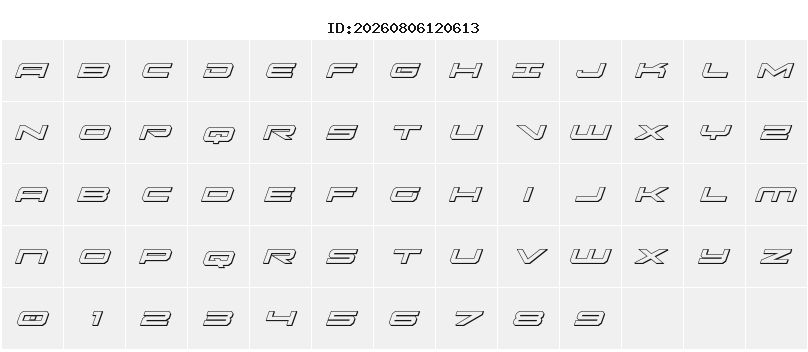
Oramac 3D Italic Preview
• Font Name: Oramac 3D Italic
• Full Font Name: Oramac 3D Italic
About Oramac 3D Italic.ttf
Oramac 3D Italic.ttf is a modern, elegant sans-serif font designed for ultimate readability and visual harmony. Perfect for branding, headlines, web design, and print materials.